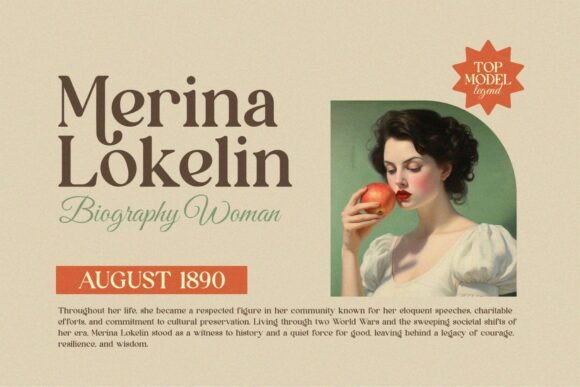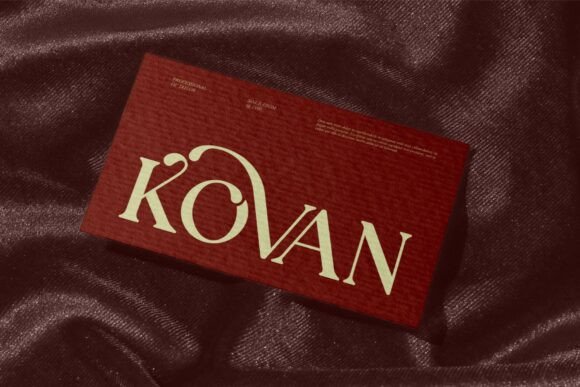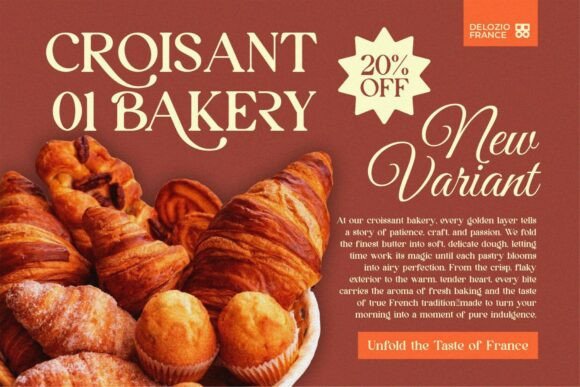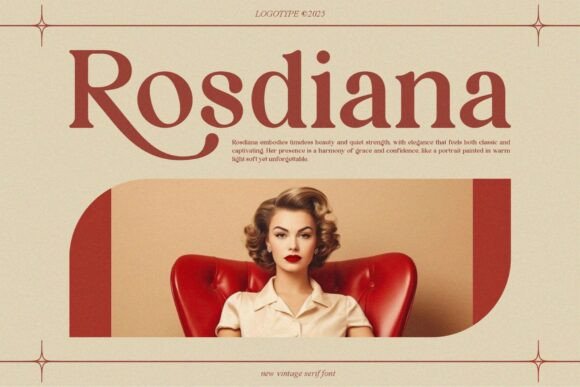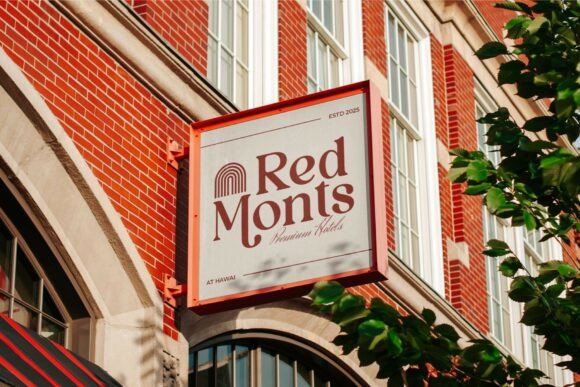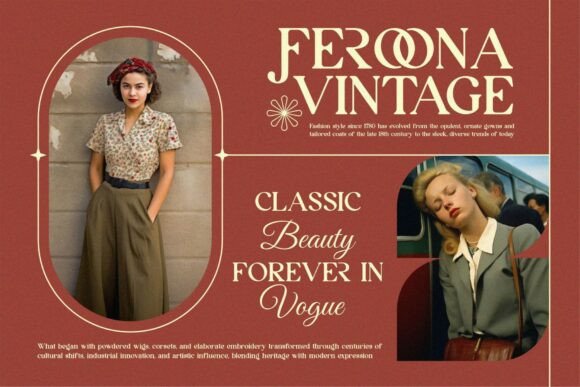
Introducing Brocho Font: The Ultimate Retro Vintage Serif for Designers
In the world of typography, fonts play a crucial role in making or breaking a design. A perfect font can elevate your brand’s identity, while a poorly chosen one can lead to a design disaster. If you’re a designer or a crafter looking for a unique and stylish font for your next project, you’re in luck! Brocho Serif, a retro vintage font type, is here to revolutionize your branding and logo designs.
What is Brocho Serif?
Brocho Serif is a smooth serif font that exudes sophistication and elegance. Its beautiful character and stylish ligatures make it a perfect partner for any design project. This retro vintage font type is suitable for a wide range of applications, including invitation card designs, cool logos, movie titles, movie names, business cards, book titles, brand names, and various other designs.
Why Choose Brocho Serif?
Brocho Serif is not just another font; it’s a design statement. Here are some reasons why designers and crafters love this font:
- Unique Character: Brocho Serif has a distinctive character that sets it apart from other fonts. Its retro vintage style gives it a nostalgic feel that’s perfect for designs that require a touch of classic elegance.
- Sophisticated and Elegant: The smooth serif lines and stylish ligatures of Brocho Serif make it a sophisticated and elegant font that’s perfect for high-end designs.
- Versatile: Brocho Serif is a versatile font that can be used for a wide range of design projects, from invitation cards to movie titles, and from business cards to book titles.
- Easy to Read: The clear and readable design of Brocho Serif makes it easy to use for both digital and print designs.
Use Cases for Brocho Serif
Brocho Serif is a versatile font that can be used for various design projects, including:
- Invitation Card Designs: Add a touch of elegance to your invitation cards with Brocho Serif.
- Logo Designs: Create stunning logos that make a statement with Brocho Serif.
- Movie Titles and Names: Give your movie titles and names a retro vintage feel with Brocho Serif.
- Business Cards: Elevate your business cards with the sophisticated and elegant design of Brocho Serif.
- Book Titles: Make your book titles stand out with the unique character of Brocho Serif.
- Brand Names: Create a lasting impression with Brocho Serif, perfect for brand names that require a touch of classic elegance.
Tips for Using Brocho Serif
Here are some tips for using Brocho Serif effectively in your designs:
- Pair it with a Sans-Serif Font: Pair Brocho Serif with a sans-serif font to create a stunning contrast that adds visual interest to your design.
- Experiment with Ligatures: Take advantage of the stylish ligatures in Brocho Serif to add a touch of elegance to your design.
- Use it for Headings: Use Brocho Serif for headings and titles to create a lasting impression.
Brocho Serif is a retro vintage font type that’s perfect for designers and crafters looking for a unique and stylish font for their next project. Its beautiful character, sophisticated and elegant design, and versatility make it a great choice for a wide range of design applications. Whether you’re creating invitation cards, logos, movie titles, or book titles, Brocho Serif is sure to make a statement. So, why wait? Download Brocho Serif today and take your designs to the next level!